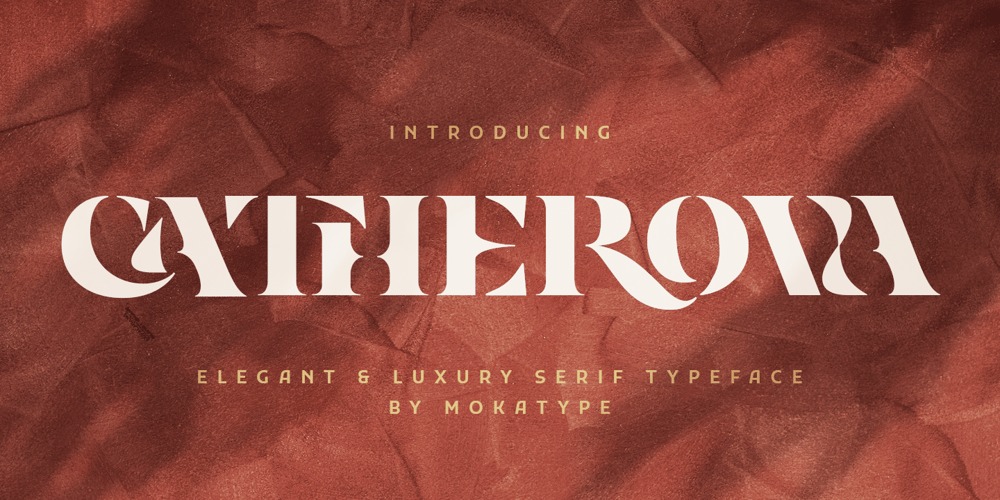
Catherova Font Family was designed by Abdul Malik Wisnu, Rivo Adriansyah and published by Mokatype Studio. Catherova contains 1 styles and family package options. Hello Introducing, Catherova – Elegant and luxurious serif display inspired by the famous Elegant Luxury logo, suitable for designing logos, templates, brochures, videos, advertising branding, and more. Perfect for adding a unique touch to word mark logos, the monogram comes with 31 ligatures that create lots of choice and uniqueness for your designs.What’s Included:+ Standard glyphs+ Ligatures+ Web Font+ International Accent+ Works on PC and Mac+ Simple installationsaccessible in Adobe Illustrator, Adobe Photoshop, Adobe InDesign, and even works on Microsoft Word. PUA Encoded Characters: Fully accessible without additional design software. Fonts include multilingual support. + Image used : All photographs/pictures/vector used in the preview are not included, they are intended for illustration purpose only.Thank you